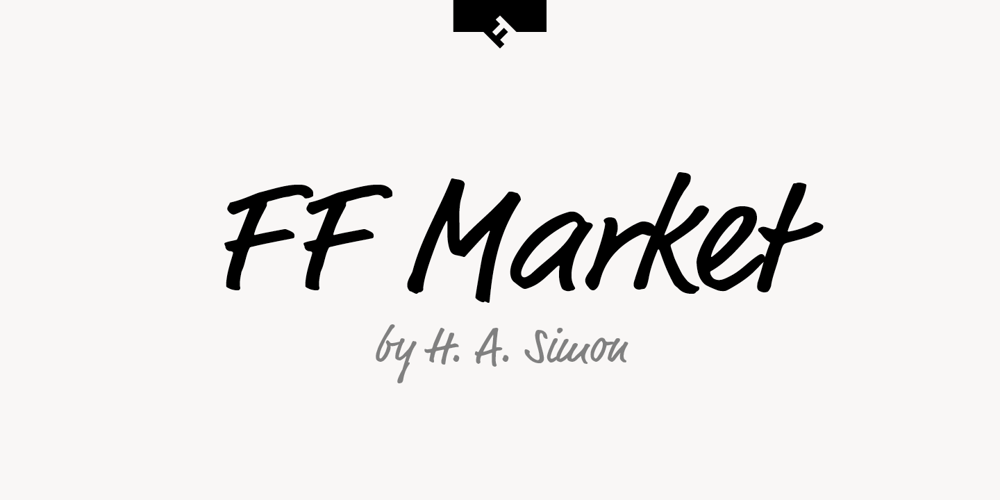
FF Market Font Family was designed by H. A. Simon and published by FontFont. FF Market contains 3 styles and family package options. German type designer H. A. Simon created this script FontFont in 1996. The family contains 3 weights: Regular, Condensed, and Bold and is ideally suited for advertising and packaging, festive occasions, editorial and publishing, poster and billboards as well as software and gaming. FF Market provides advanced typographical support with features such as ligatures, alternate characters, case-sensitive forms, fractions, super- and subscript characters, and stylistic alternates. It comes with tabular lining figures.